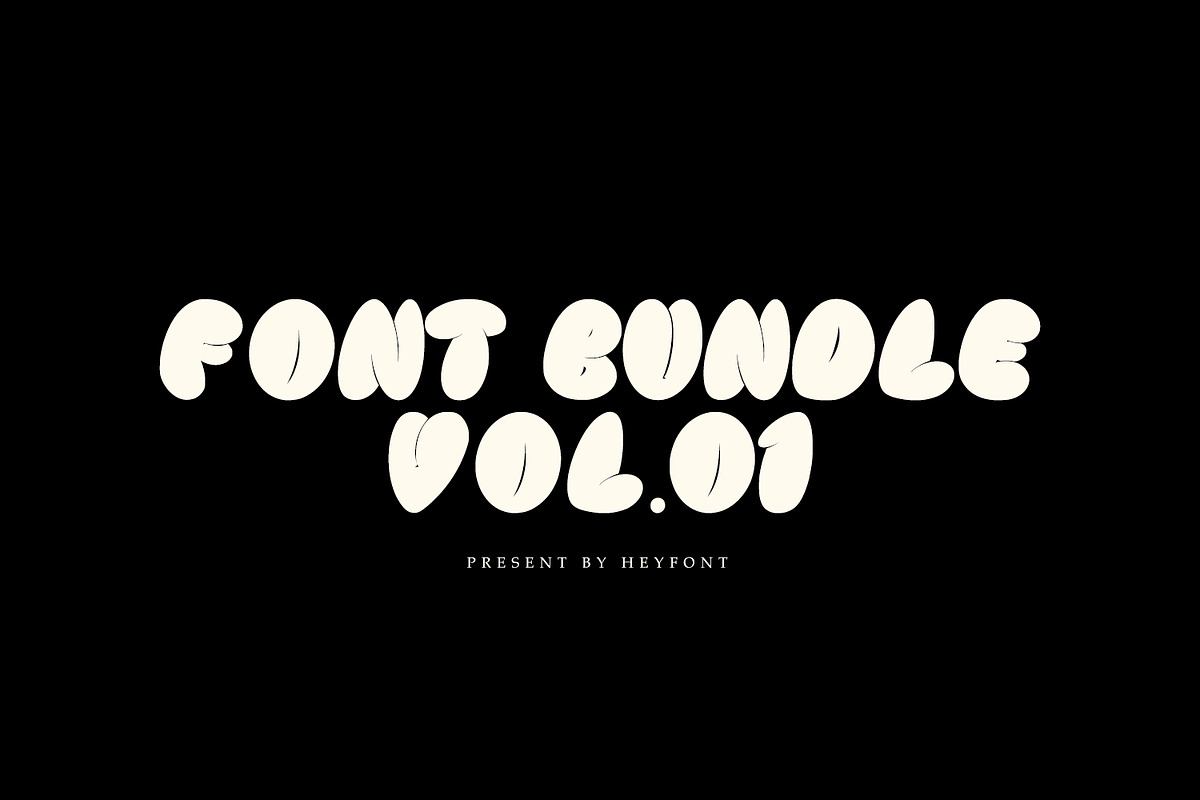
This bundle typically includes a variety of type styles such as elegant serifs, playful scripts, bold displays, and clean sans-serifs—each crafted with attention to detail and creative flair. Whether you’re looking to build a professional brand identity or add a personal touch to your work, Font Bundle Vol.01 Free Download gives you access to a wide range of typographic moods and aesthetics.